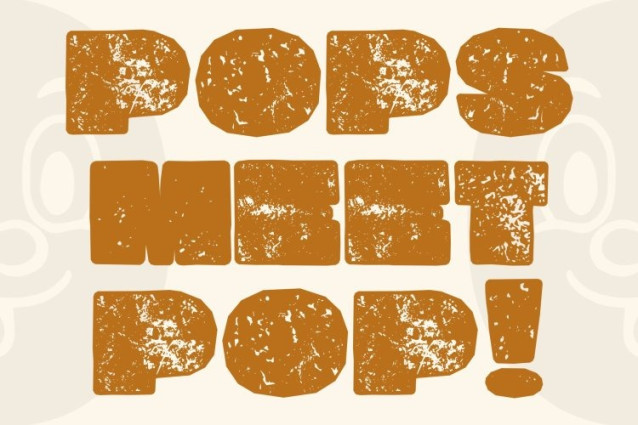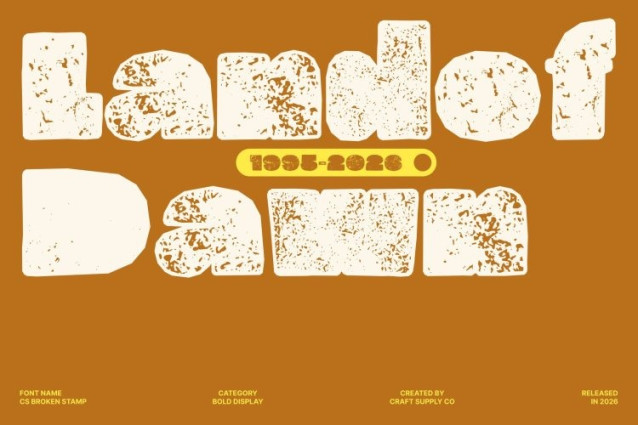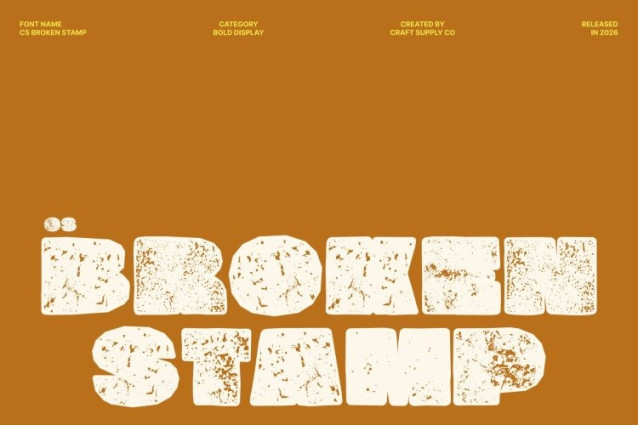
CS Broken Stamp Font
CS Broken Stamp Font – This is a bold display font featuring a distinctive balloon-like design with rounded, inflated letterforms. Its thick weight and soft curves create a lively and cheerful personality that instantly grabs attention. Enhanced with a stamped texture, the font gains a playful handcrafted feel that adds depth and character to its fun and expressive shapes.
Vibrant and Fun Personality
The bold, rounded forms of this font create a dynamic and energetic visual impact. Its bubbly structure evokes joy, excitement, and creativity, making it ideal for designs that aim to feel friendly and engaging. The stamped texture introduces a slightly imperfect surface that strengthens its playful charm while maintaining strong readability.
Versatile for Creative Projects
This font works beautifully across a wide range of creative applications. From children’s materials and party invitations to colorful branding and playful educational content, the font brings an energetic and eye-catching presence. Its bold forms ensure strong visibility in headlines, posters, and promotional graphics.
Perfect for Whimsical and Joyful Designs
Whether used for event posters, kids’ products, social media graphics, or vibrant packaging, this font adds a fun and memorable personality to every design. Its balloon-like shapes combined with textured detail make it a perfect choice for projects that celebrate creativity, excitement, and playful expression.